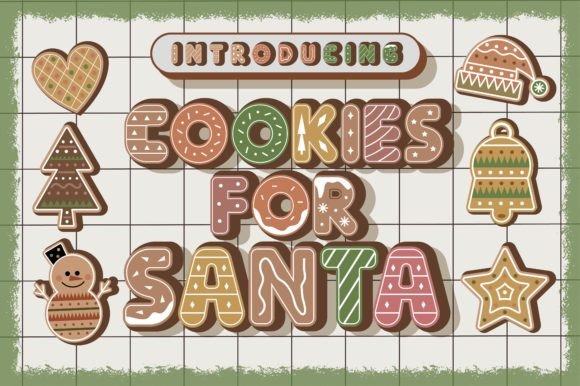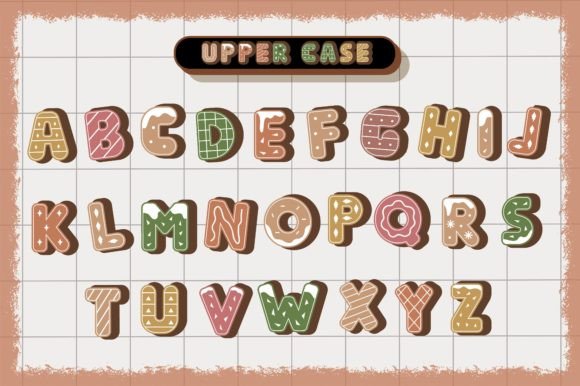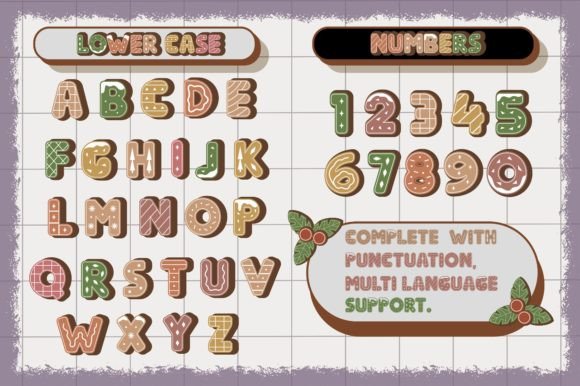
Cookies for Santa Font
About the Cookies for Santa Font
Welcome to the world of Cookies for Santa Font, a typeface that will inspire your next great project. Cookies For Santa is a bold decorative font with a Christmas theme. Make your holiday season bright and festive with the Cookies For Santa font!
This font’s playful, bold style is ideally suited for headlines, short festive messages, and eye-catching Christmas-themed designs on packaging or posters. It adds a touch of whimsical charm to holiday branding and works well in large sizes where its decorative details are clearly visible. Avoid using it for body text or UI elements; its decorative nature reduces readability in smaller sizes or extended use.
Cookies for Santa pairs well with clean sans-serif fonts like Open Sans or Montserrat for a balanced contrast, providing readability to support the playful headline. For a more traditional feel, consider pairing it with a classic serif like Garamond or Times New Roman. A simple script font could add an elegant touch to invitations or greeting cards.
The overall personality is cheerful and festive, best suited for brands or projects conveying a lighthearted, holiday spirit. Its boldness demands attention, making it ideal for grabbing the viewer’s eye, but its whimsical nature limits its application to contexts requiring serious or sophisticated messaging.